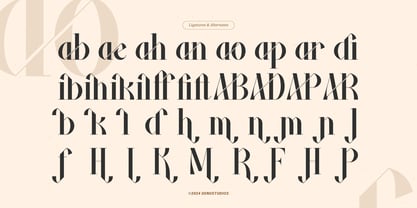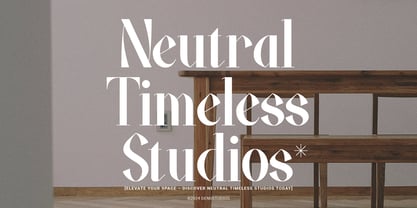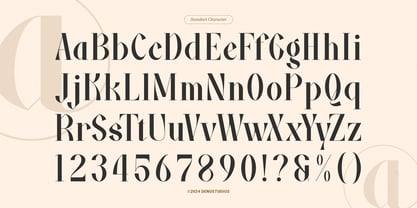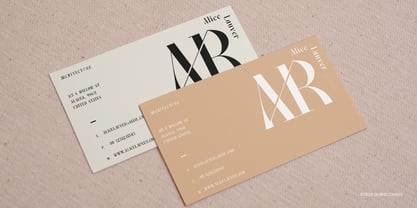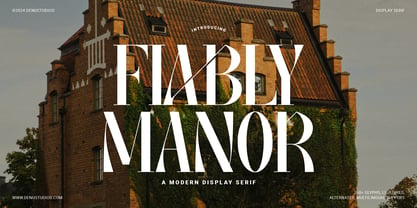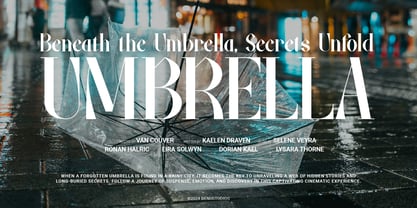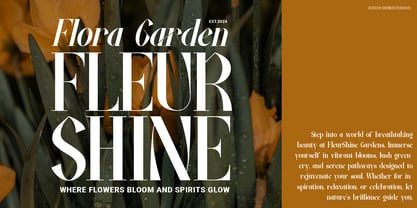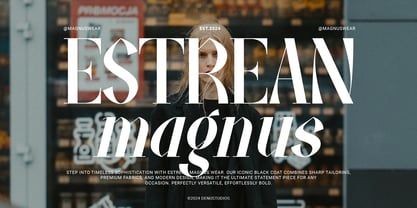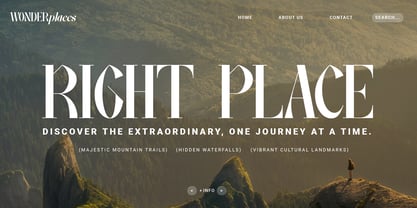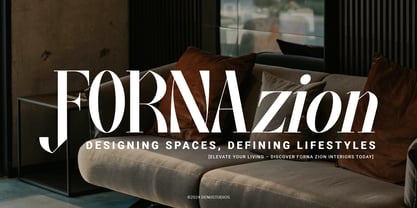
Fiably Manor
The Fiably Manor Font Family was designed by Dede Nugraha and published by Denustudio. Fiably Manor contains 2 styles and family package options. More about this family
Fiably Manor | Modern Display Serif, from Denustudios, suitable for any projects such as: logos, branding projects, homeware designs, product packaging, mugs, quotes, posters, shopping bags, t-shirts, book covers, name card, invitation cards, greeting cards, label, photography, watermark, special events, and all your other lovely projects that need a Modern Display Serif taste.
• Regular and Italic
• Standard glyphs
• Alternate and Ligature